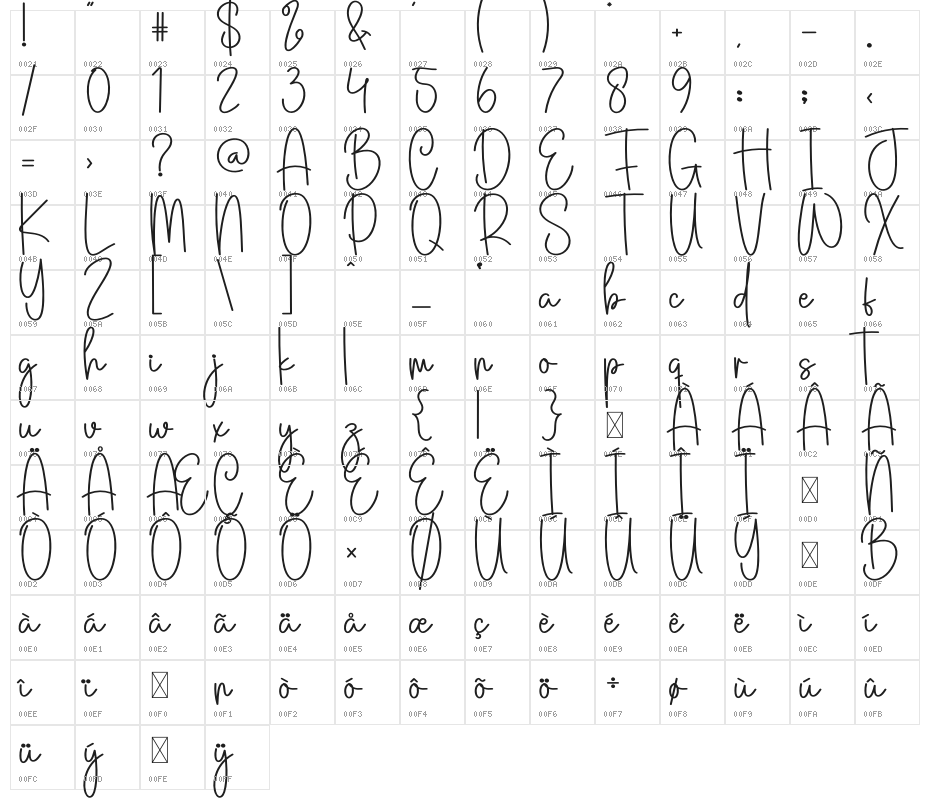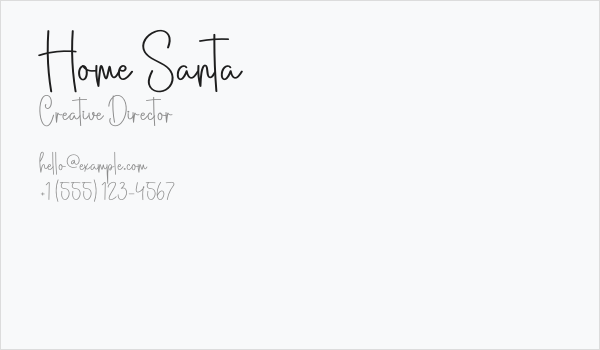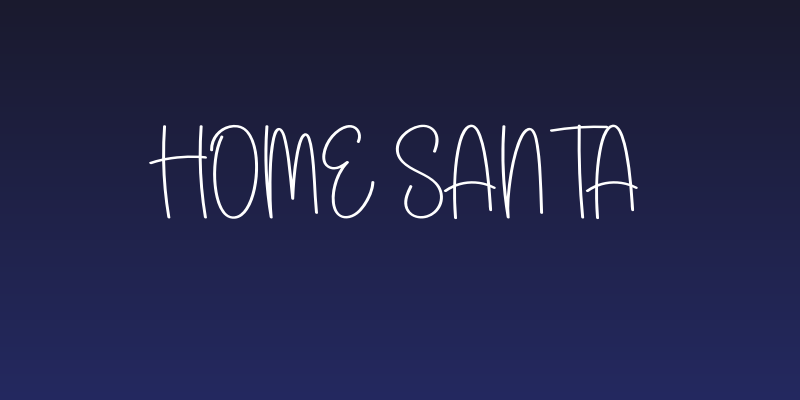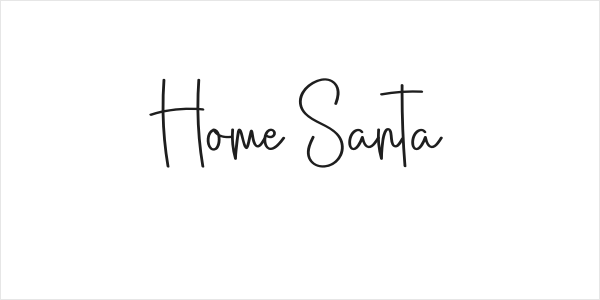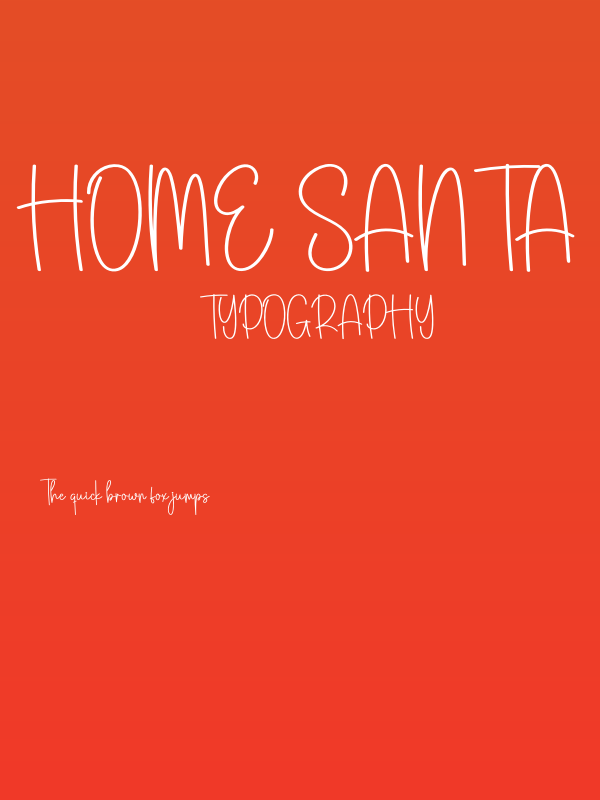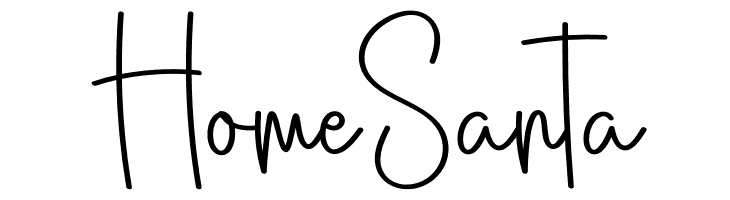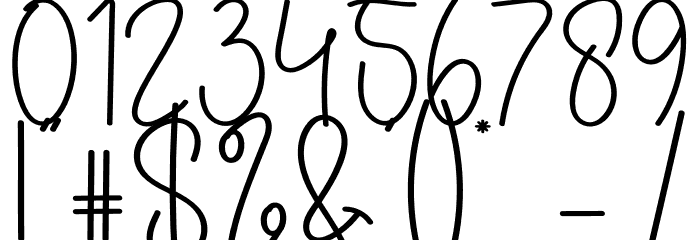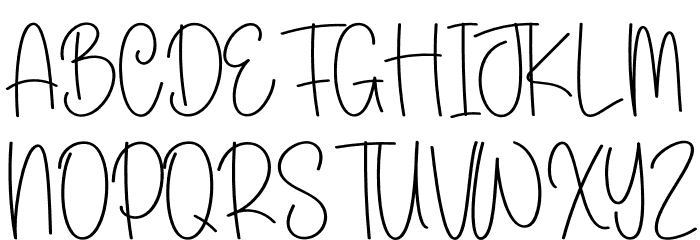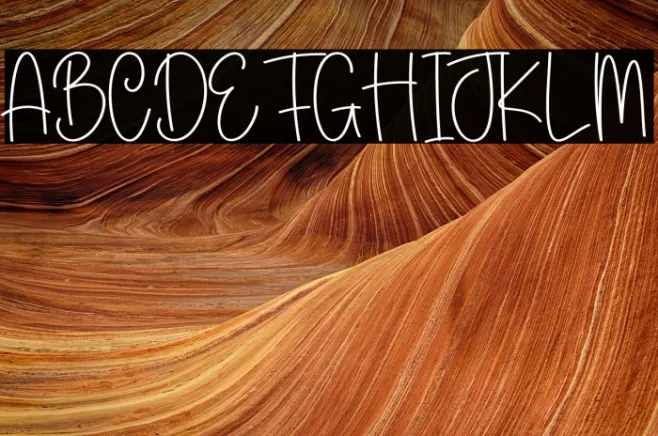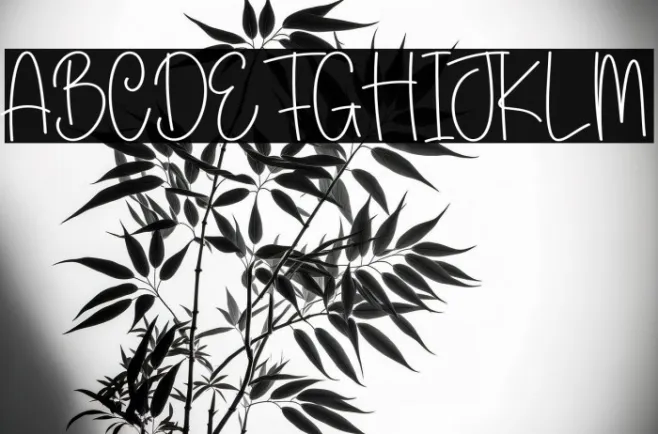
Home Santa Font
Home Santa Description
A playful, handwritten script font with tall, narrow letterforms and loose, casual strokes. The characters have a whimsical, informal feel, with consistent line thickness and generous vertical proportions. The overall appearance is friendly and approachable, with a touch of personality.
| Overall Style | Playful, Casual, Whimsical |
| Use Case | Headlines, Logos, Decorative text, Short quotes |
| Proposed Projects | Greeting cards, invitations, children's books, holiday materials, casual branding. |